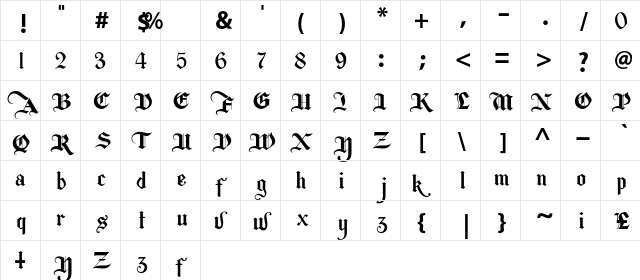
Berkahi Blackletter draws on the rich tradition of blackletter calligraphy, with dense, angular strokes that evoke medieval manuscripts and old-world craftsmanship. Its bold stroke weight gives it real presence on the page.
Font Pairing: Pair with a clean neutral sans-serif for body copy to let Berkahi Blackletter's character lead without overwhelming the composition.
Pro Tip: Reserve Berkahi Blackletter for display and logo use - pair it with a clean sans-serif for body copy to prevent the composition from feeling oppressive.